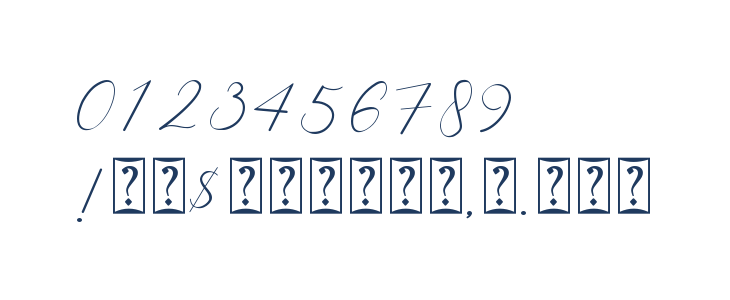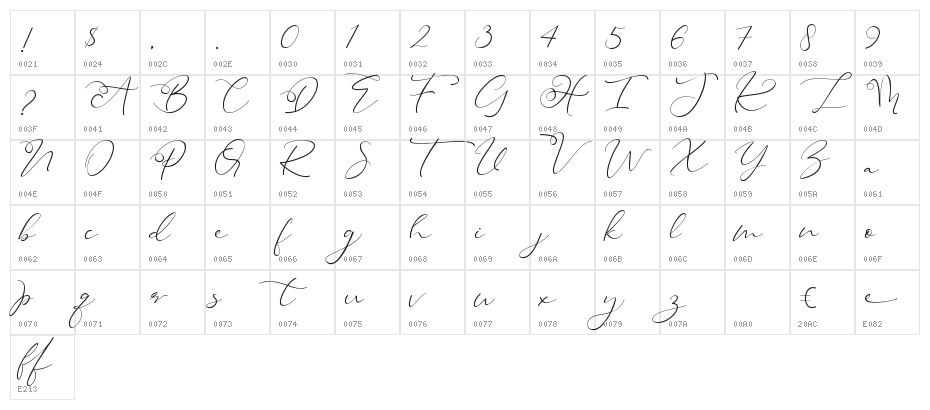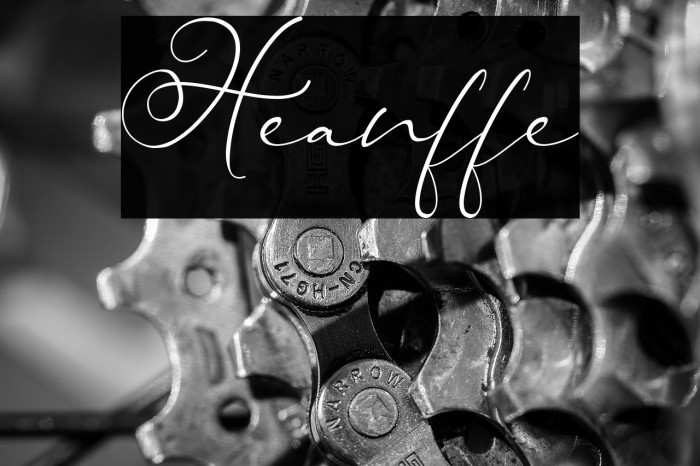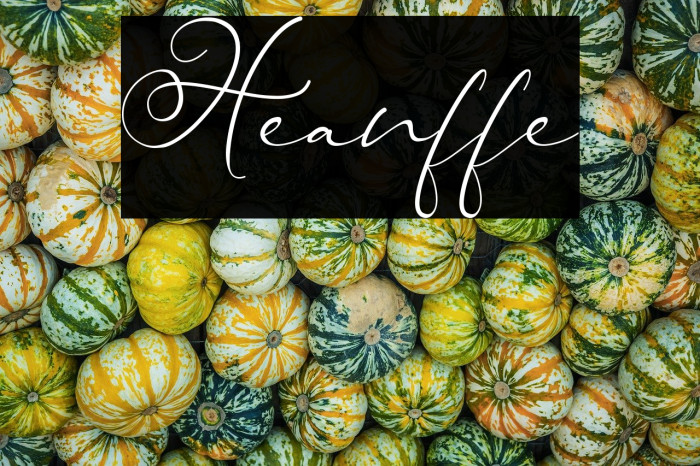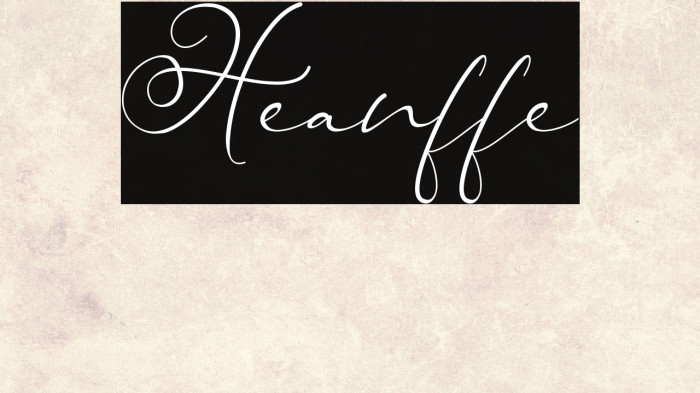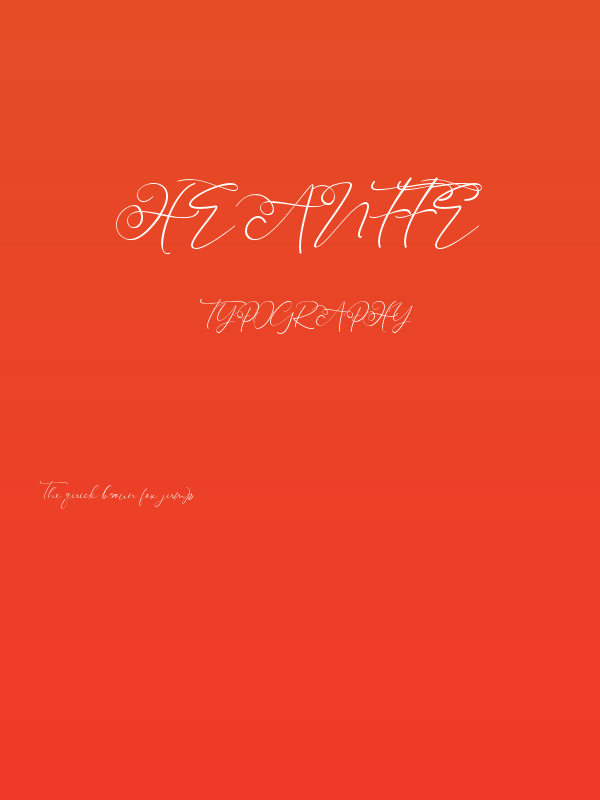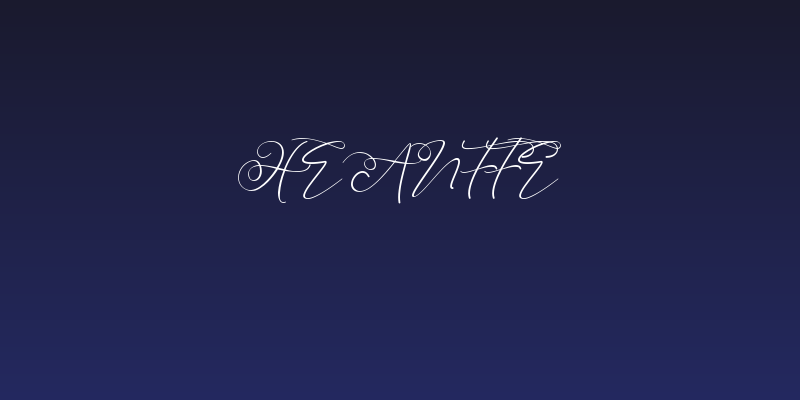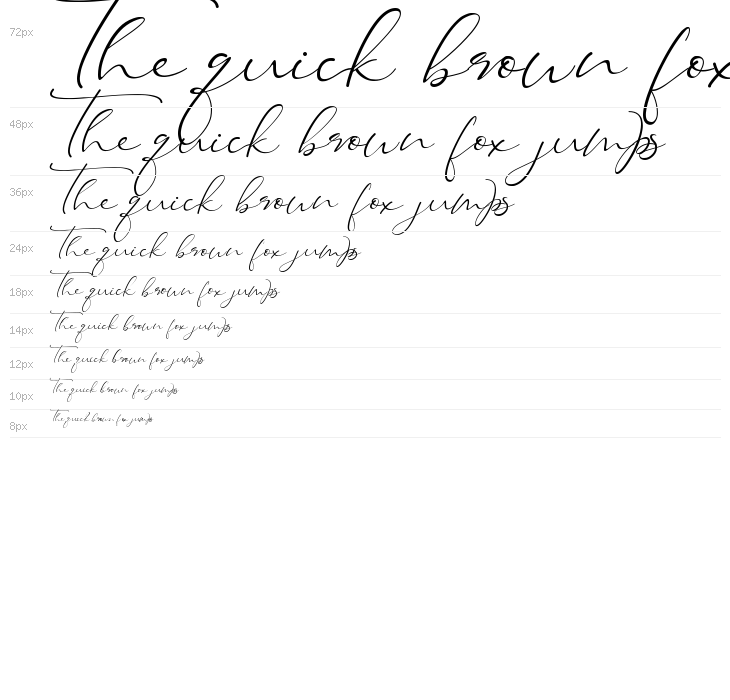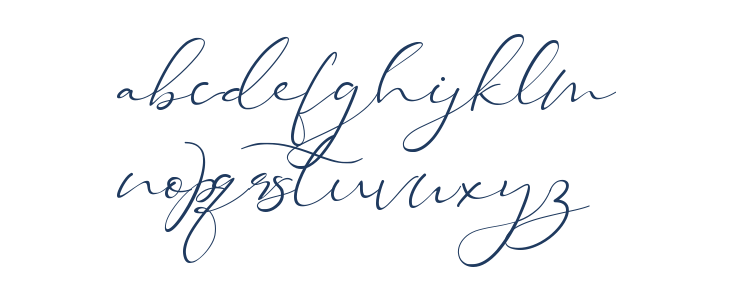
Heanffe Font
Heanffe Description
This elegant script font features flowing, cursive characters with a sophisticated and artistic flair. The uppercase letters are adorned with intricate loops and swirls, giving them a decorative appearance. The lowercase letters maintain a smooth, connected style, enhancing readability while preserving the font's graceful aesthetic. The numerals are consistent with the script's fluidity, offering a harmonious blend with the alphabet. Special characters are thoughtfully designed to complement the overall style, making this font suitable for formal and creative applications.
Overall StyleElegant, Artistic
Use CaseHeadlines, Invitations, Branding
Proposed ProjectsIdeal for wedding invitations, elegant branding, personal stationery, and artistic projects.